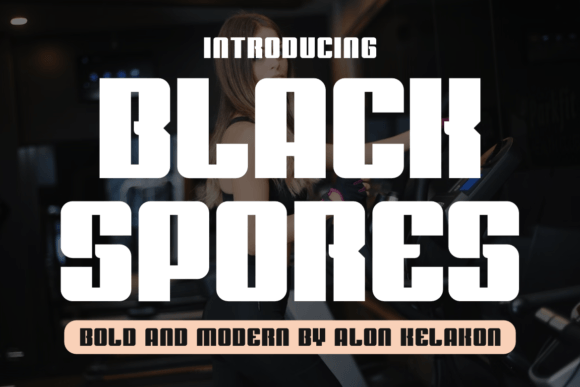
Introducing Black Spores, the sans-serif font that commands attention with its bold and assertive strokes. This captivating font is a masterful blend of strength and sophistication, designed to make a striking impact in any context.
With its sharp angles and clean lines, Black Spores exudes an air of confidence and authority. It's the perfect choice for projects that demand a strong, eye-catching presence, such as logos, headlines, posters, and packaging. Whether you're crafting a professional report, a dynamic presentation, or an unforgettable marketing campaign, Black Spores will ensure your message stands out from the crowd.
But Black Spores isn't just about aesthetics. Its exceptional readability makes it ideal for reference documents, ensuring clear and effortless comprehension. Let Black Spores guide your readers through complex information, technical manuals, or legal contracts with ease and clarity.
Beyond its practical applications, Black Spores is a font that inspires creativity and imagination. Its versatility allows it to adapt seamlessly to a wide range of design styles. From modern and minimalist to classic and timeless, Black Spores has the power to transform your creations into works of art.
Whether you're a seasoned designer or just starting your typographic journey, Black Spores is the ultimate font for making a statement. It's the font that will empower your designs, ignite your creativity, and leave an unforgettable impression on your audience.